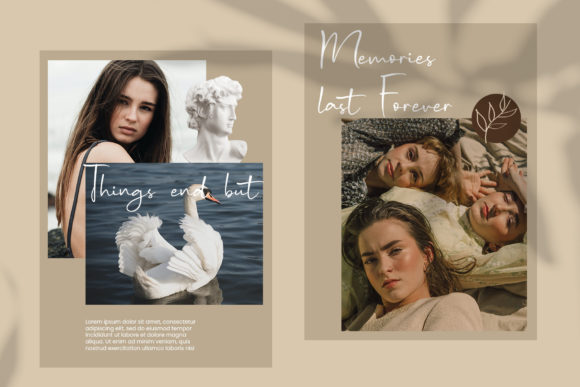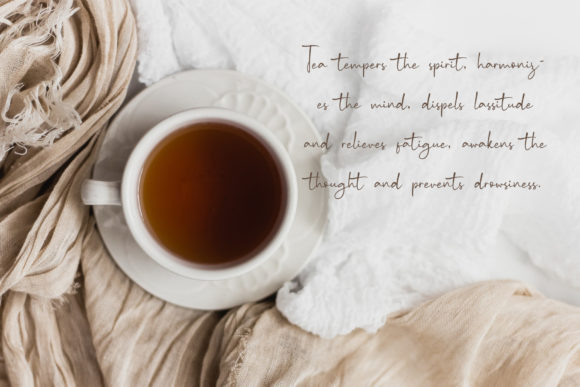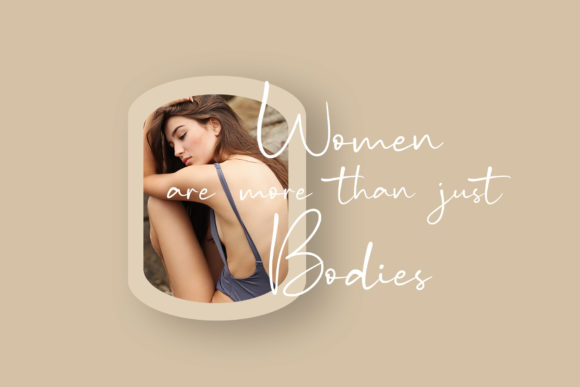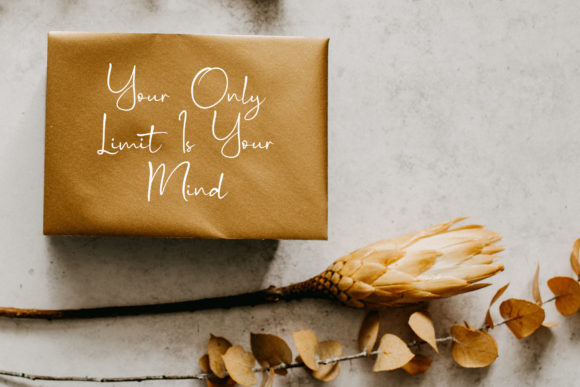
About Batsy Font
Batsy is a delightful and charming handwritten font that exudes a warm and friendly vibe. With its natural and unique style, Batsy is an excellent choice for a wide range of designs, offering endless creative possibilities limited only by your imagination.
Whether you’re working on invitations, posters, greeting cards, social media graphics, or any other project, Batsy’s versatile and playful nature will bring a touch of joy and personality to your designs. Its handwritten appearance adds an authentic and personal feel, making it perfect for creating a genuine connection with your audience.
The fluid strokes and whimsical details of Batsy make it a standout font that can effortlessly elevate your designs. Its natural flow and organic shapes give a sense of spontaneity and liveliness, making it an ideal choice for projects that require a friendly and approachable touch.
Batsy invites you to explore its versatility and experiment with various design elements. Play around with different letter spacing, sizes, and colors to create visually engaging compositions that truly reflect your creative vision.
No matter the project, Batsy is ready to add a touch of sweetness and friendliness to your designs. From branding to marketing materials, Batsy will bring a sense of warmth and authenticity that resonates with your audience.
Unleash your imagination and let Batsy guide you in creating remarkable designs that leave a lasting impression. Its natural and unique style will make your designs stand out and create a memorable experience for your viewers.